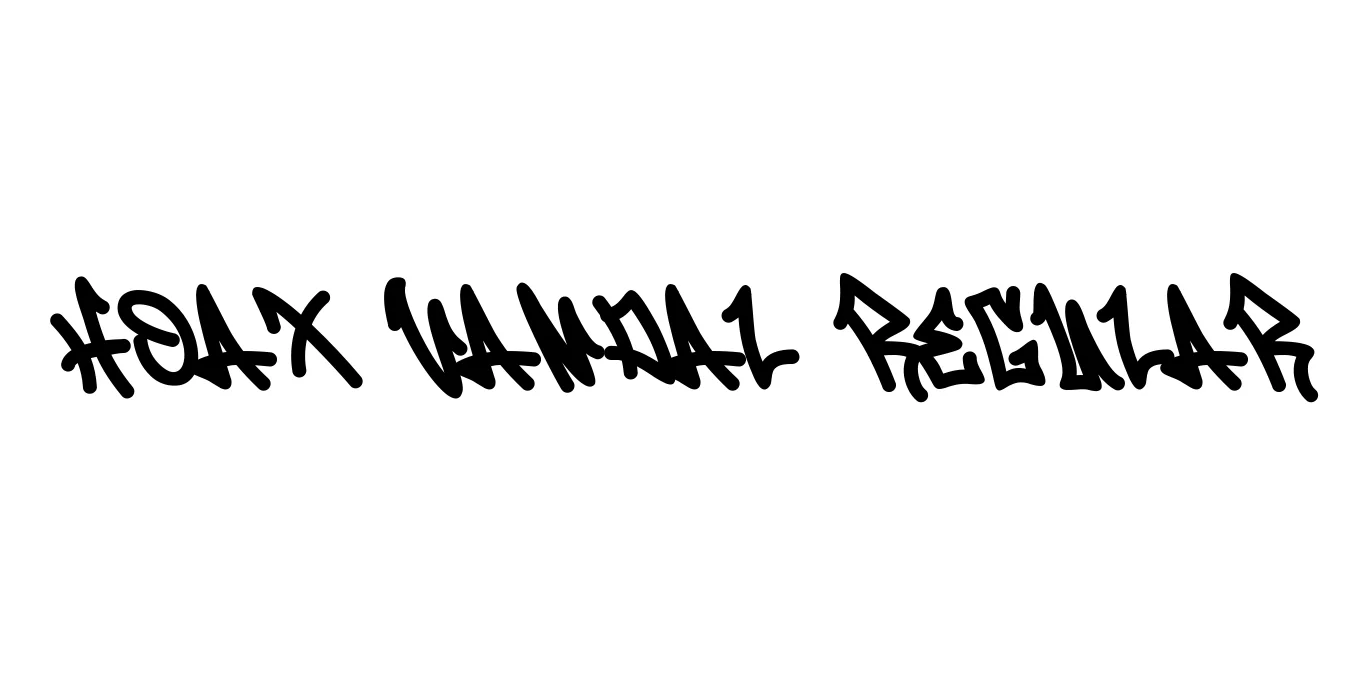
Hoax Vandal Regular
| Font Name | Hoax Vandal |
| Category | Display / Graffiti |
Hoax Vandal Regular is a high-energy, urban-inspired display typeface designed to capture the raw aesthetic of street art and graffiti culture. With its aggressive strokes and overlapping letterforms, the font mimics the look of spray-painted tags found on city walls. It was crafted to provide a sense of rebellion and modern edge, making it an ideal choice for projects that require a bold, non-conformist visual identity.
Technically, the font features a balanced weight that maintains readability even with its stylized flourishes. The Regular weight is versatile enough for both digital and print media, often utilized in music album covers, streetwear branding, and extreme sports promotion. Since its release, it has become a staple for designers looking to inject a sense of authenticity and urban grit into their creative compositions without sacrificing professional quality.
Hoax Vandal Regular Best Uses
Perfect for t-shirt graphics and urban clothing line logos.
Ideal for hip-hop, punk, or rock album cover art and promotional posters.
Eye-catching for YouTube thumbnails and high-impact Instagram graphics.
Suitable for action-oriented video game titles and stylized interface elements.